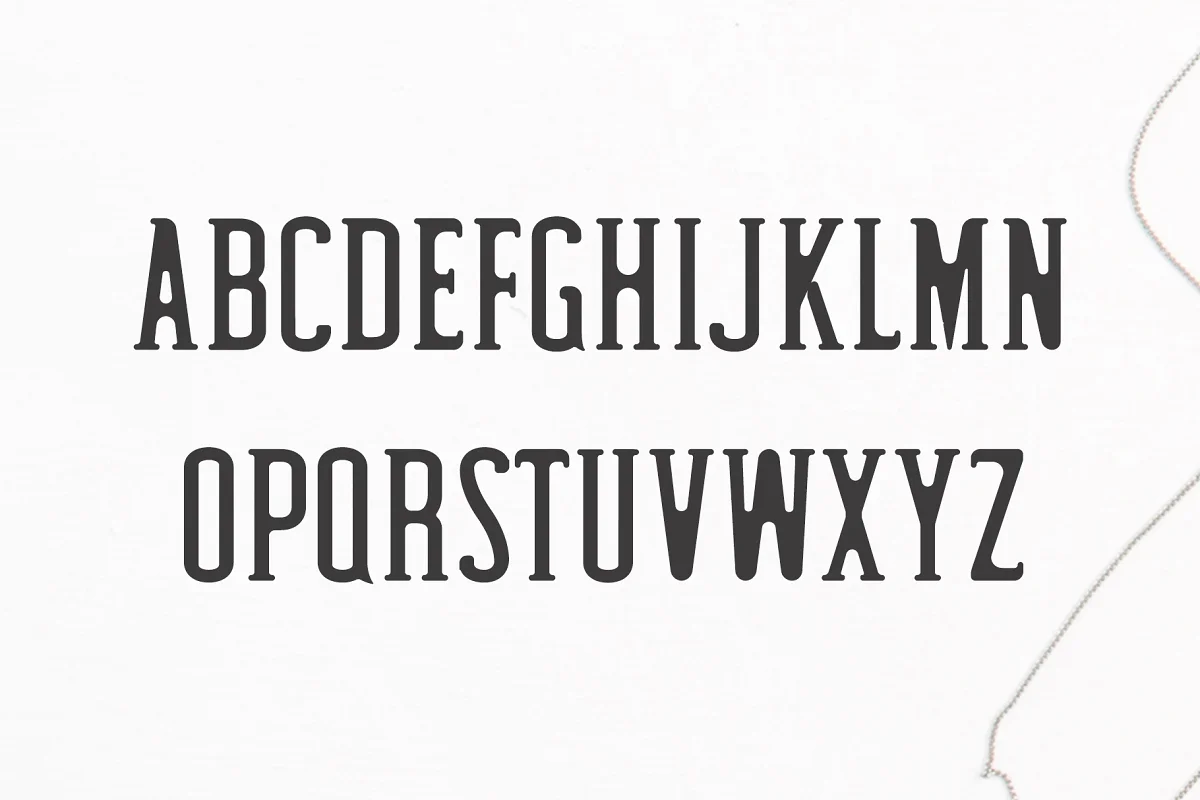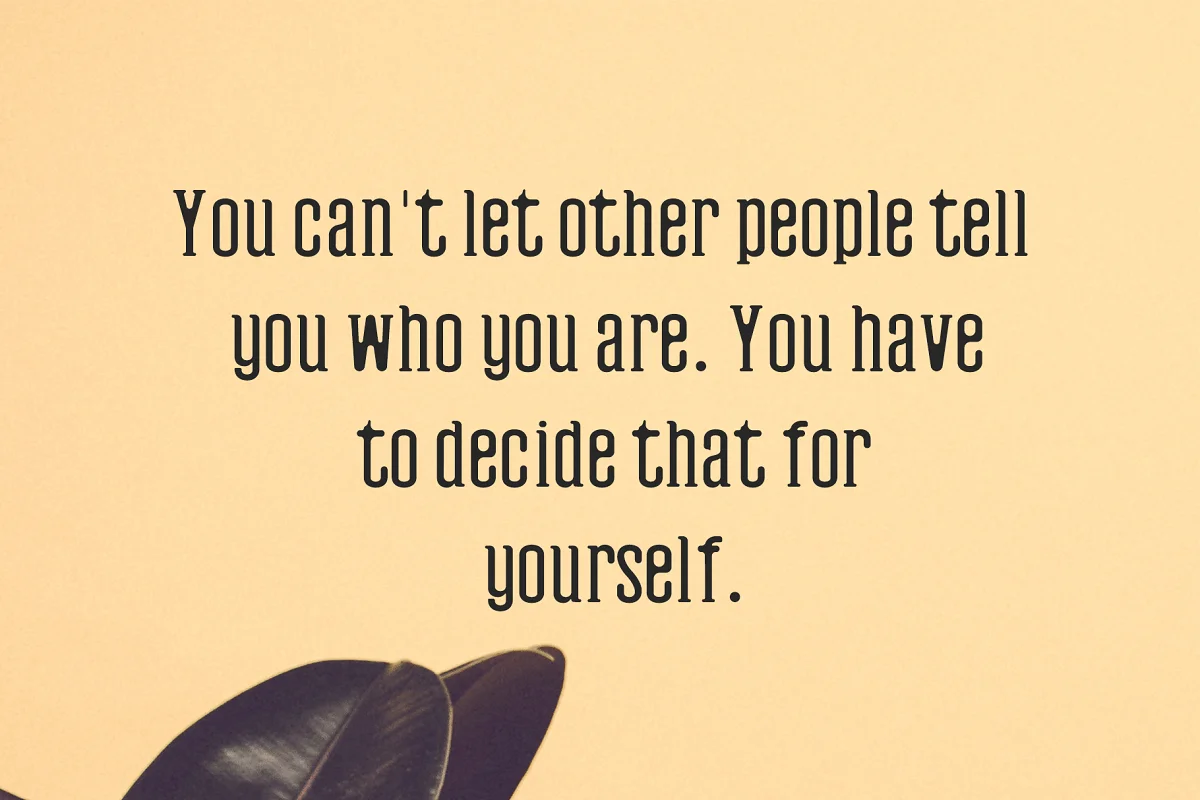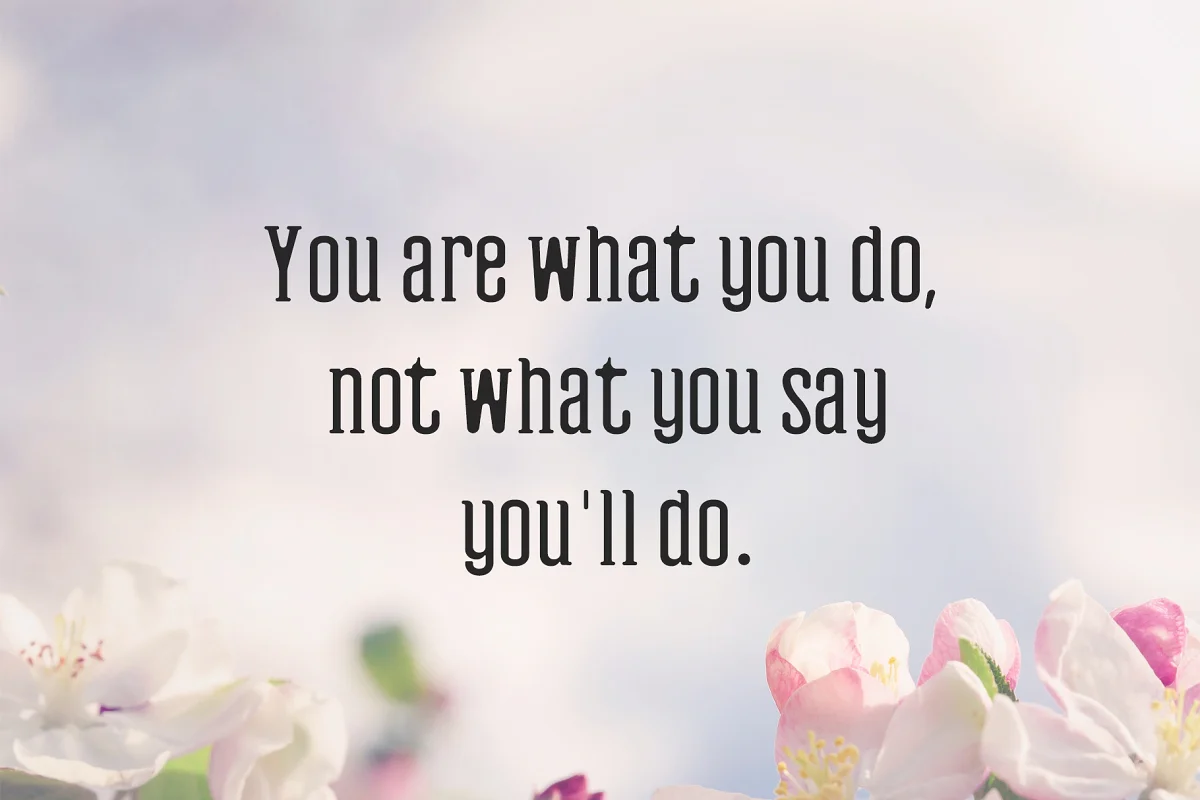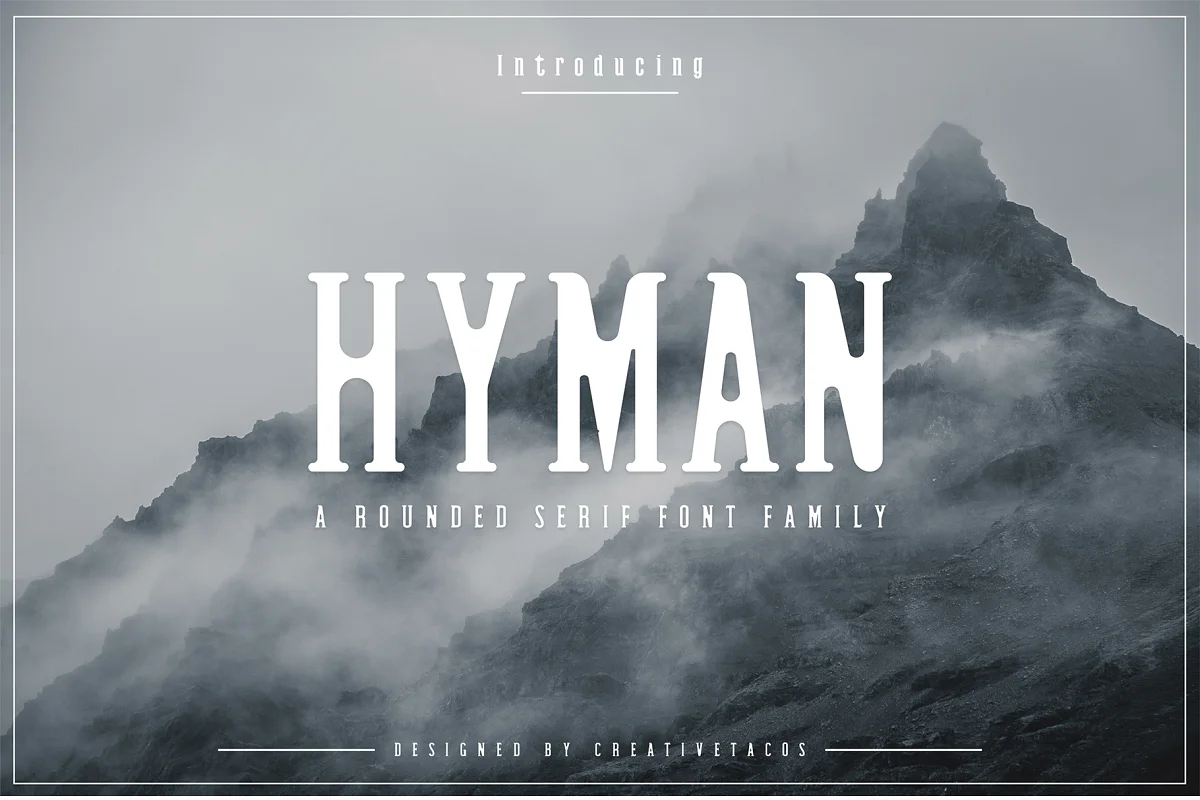
About the Hyman Rounded Serif Font
Hyman Rounded Serif Font is a modern and minimalist rounded serif typeface with a slab serif look. It comes with 4 weights: Regular, Light, and Bold, which contains the uppercase and lowercase alphabet, numbers, basic punctuation with multilingual support.
This font will pair beautifully with the script, signature, or handwriting style. Hyman can be used for headlines, posters, branding, packaging, presentations, logo, quotes, titles, magazines headings, web layouts, advertising, invitations, packaging design, books, and nearly any creative design.
- Font Weight: Regular, Light, and Bold
Hyman Font Features:
- Uppercase Letters
- Lowercase Letters
- Numbers & Punctuation
- Non-English Characters ( Latin Supplement + Latin Extended-A)